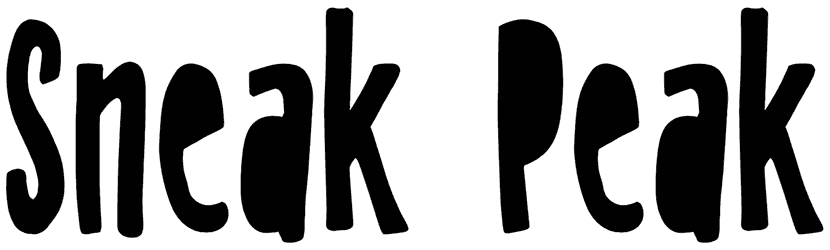
Sneak Peak Font
This cartoon font can give the perfect filled and soft look to your words! This school font has bold characters that are mostly rounded and without any shallow parts. You can use it for any decorative music event flyer or poster, movie titles, personal blogs, school event flyers and banners, and Halloween designs. The character placement in the Sneak Peak font is a little bit distorted for fun!
Sneak Peak is a adorable, fun, and kids display font, carefully handcrafted to become a true favorite.